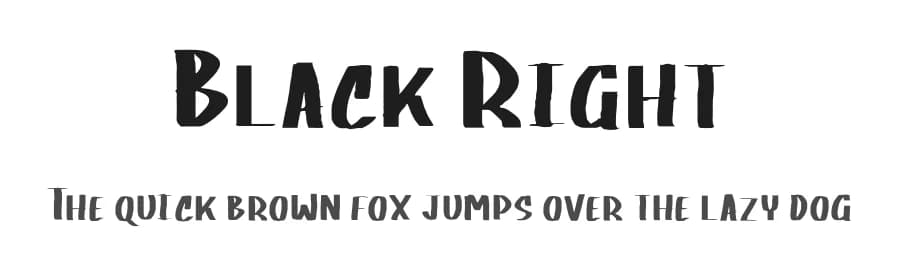
About Black Right Font
Black Right is a script & handwritten font designed by kokostd. It includes 56 glyphs, a black weight, OTF (CFF) format, and 89 languages. Black Right is free to download; check the license details on this page before commercial use. Script & handwritten fonts like Black Right work best for wedding invitations, greeting cards, signatures, and elegant branding.
- Heavy, Elegant, Flowing, Script
Black Right Font is a script font that shines as a display or heading face. Pair it with a clean sans-serif or serif font for body text β the contrast creates a clear hierarchy while the two styles stay balanced and easy to read.
Black Right Font